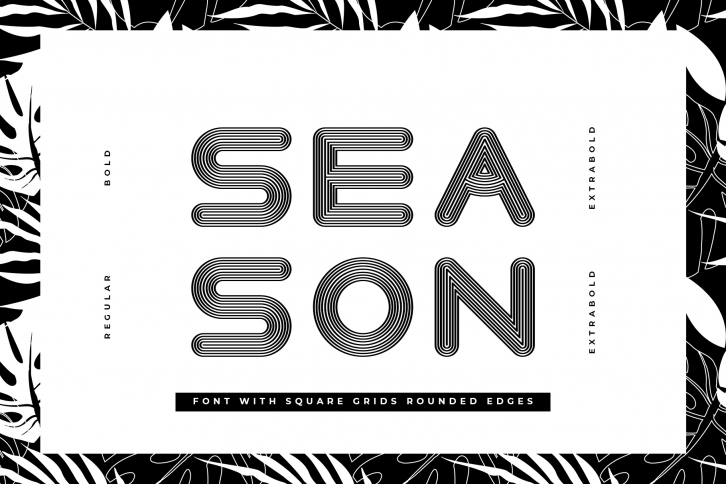
Season Sans - 4 weights FONT Download
Season Sans is a gorgeous font that was realeased on September 11, 2018. The font can be used in many style contexts and design environments. Perfect for invitations, magazines, websites, logos, and more! It was designed by Simply Swapnil and the file size is 19.72 MB. Thanks for checking out this font!